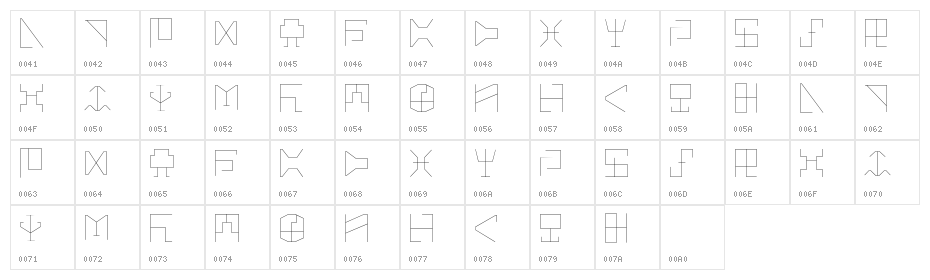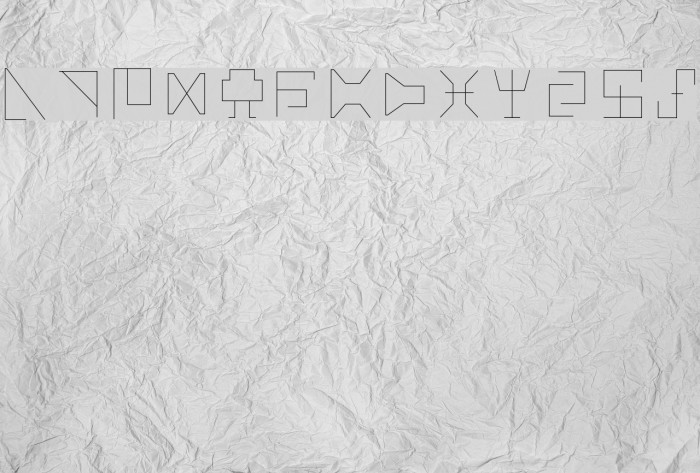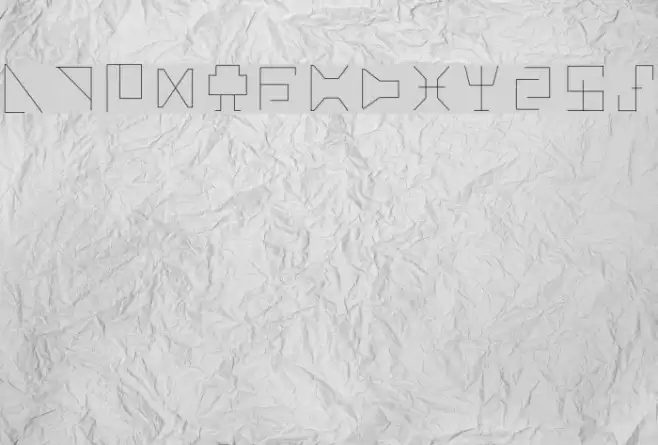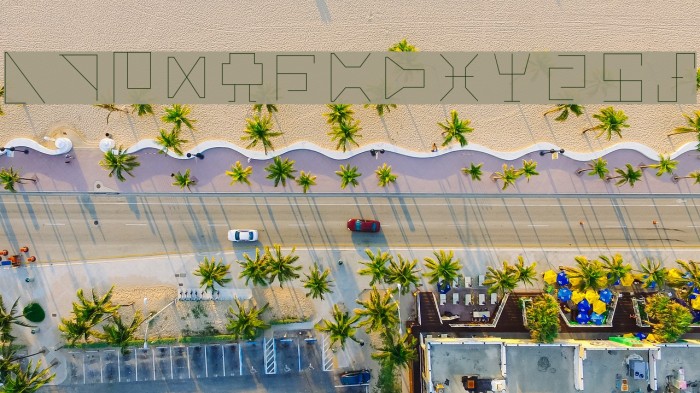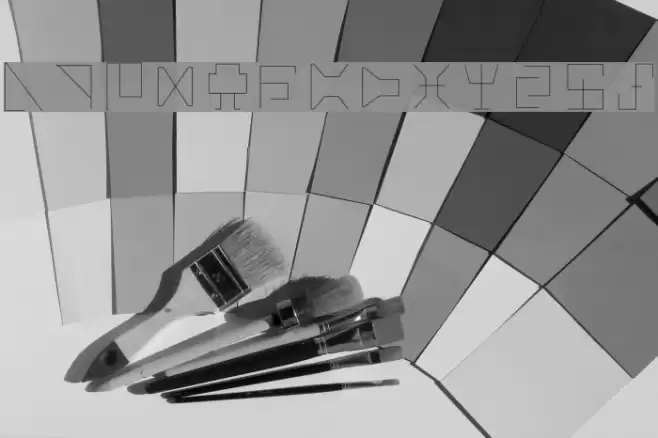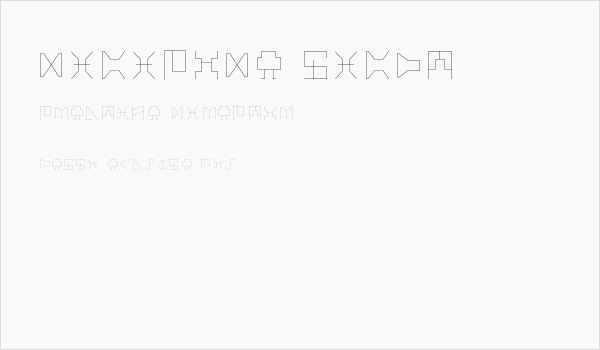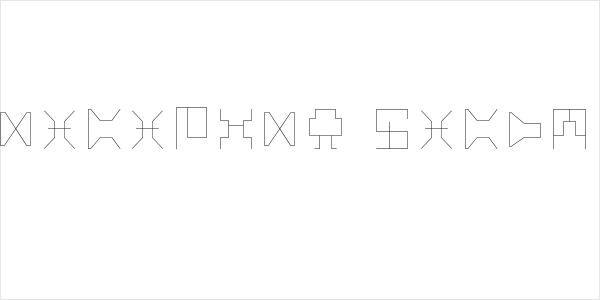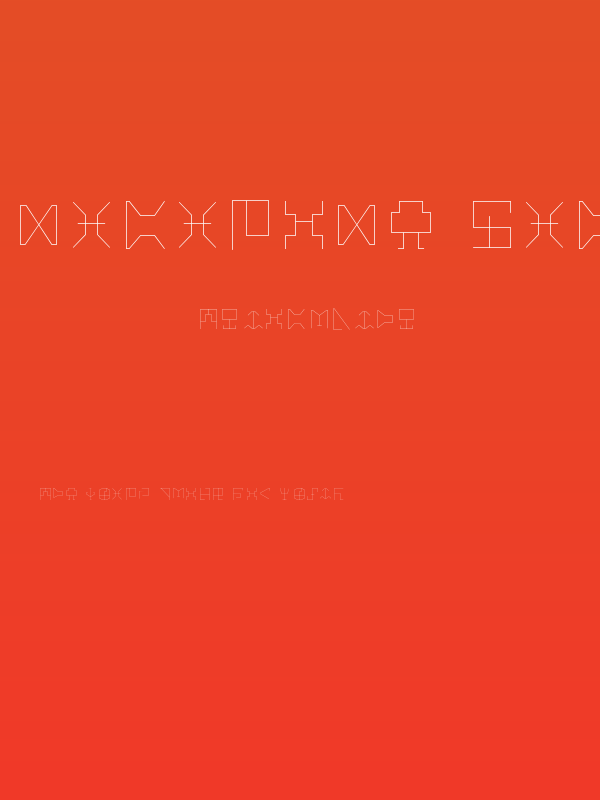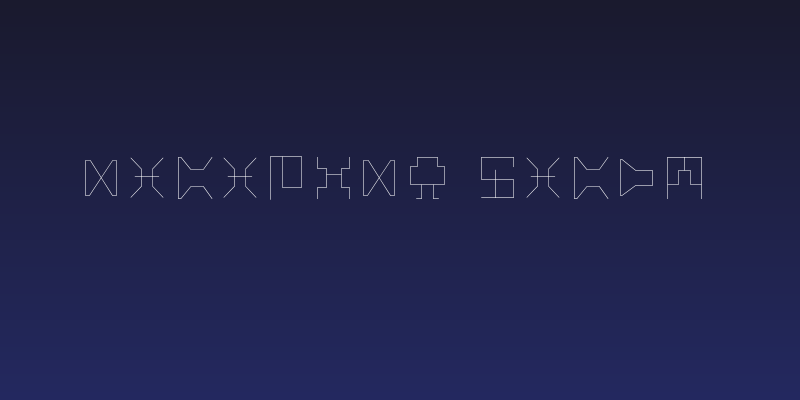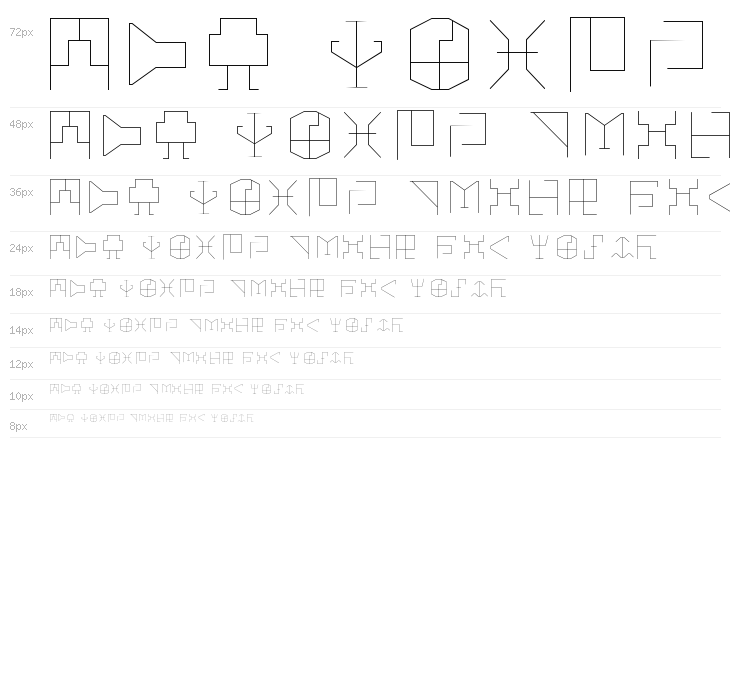
Digicode Light Font
Digicode Light Description
This font features a futuristic and geometric design, characterized by its angular and abstract letterforms. Each character is constructed with precise lines and shapes, creating a digital or technological aesthetic. The font's structure is reminiscent of circuit patterns or digital codes, making it ideal for projects that require a modern and innovative look. The characters are distinct and easily recognizable, yet they maintain a cohesive style throughout the set. This font is suitable for creative and experimental designs, where a unique and striking appearance is desired.
| Proposed Projects | Ideal for tech-themed designs, digital art, sci-fi projects, and modern branding. |